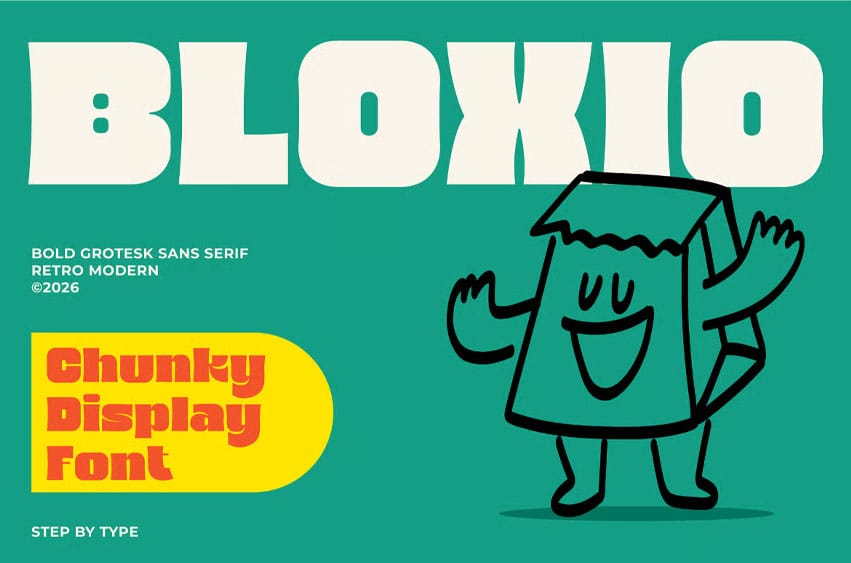
Bloxio Font is a fun, blocky display font bursting with personality and energy. With its chunky letterforms and playful character, Bloxio is the perfect typeface for projects that need to feel bold, friendly, and full of life.
Whether you’re designing for kids, games, events, or any creative project that demands a big, cheerful presence — Bloxio brings the fun and makes your design impossible to ignore.